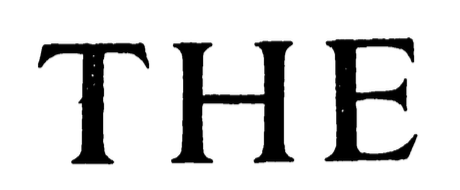
I'm in love with the little serif on the bottom of the G. The G and the A match Galliard, but the T isn't right for Galliard.
Galliard wasn’t around yet in 1911. This is Römische Antiqua, or probably rather one of the American or British versions thereof, like Inland’s MacFarland, Farmer’s Bradford Old Style, Hansen’s Crawford, or Shanks’s Flemish Old Style.
Wow, certainly several of these seem probable, but it seems that not one of them is available as a digital font???
That’s correct. Laurenz Brunner’s LL Bradford is a digital interpretation, and it has that G with spur, but it is of lower contrast, and key details like top of A, long middle bar in E, angled terminals of T, and bowl of R were drawn differently.